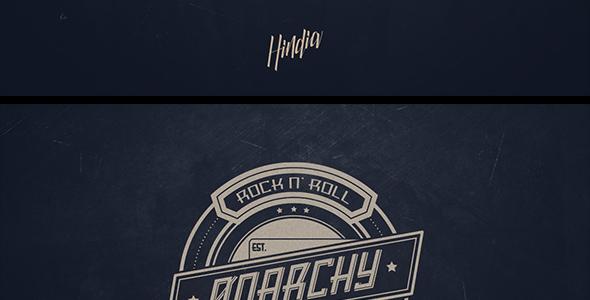
Kahuripan Font
Add some thrills to your designs with Kahuripan! A bold/clean/vintage/grunge style font set, perfect for creating headline display text very easy. Kahuripan has its own explicit charisma; perfect for Logos, Advertising, Music Industry, Apparel Design, Labels, Signage, Etc. Files Included: - Kahuripan 3D - Kahuripan 3D Grunge - Kahuripan Shadow - Kahuripan Shadow Grunge *Fonts are provided in .TTF formats Features: - Uppercase/Lowercase - Numerals & Punctuations - Accents (Multilingual characters) Thanks for watching and I hope you have fun with Kahuripan!